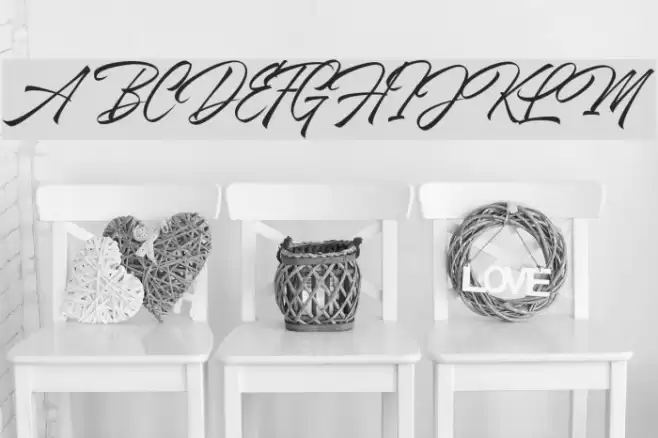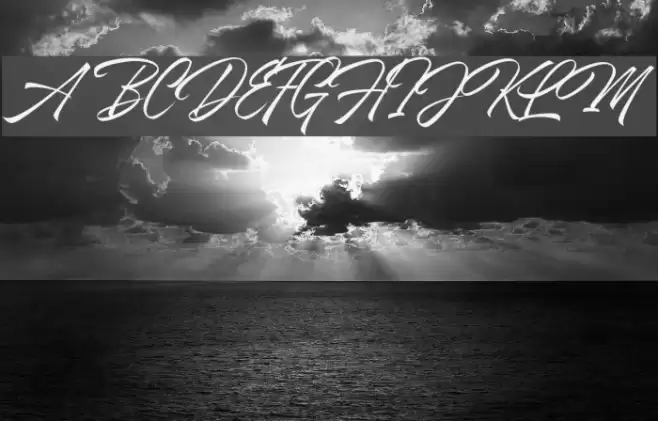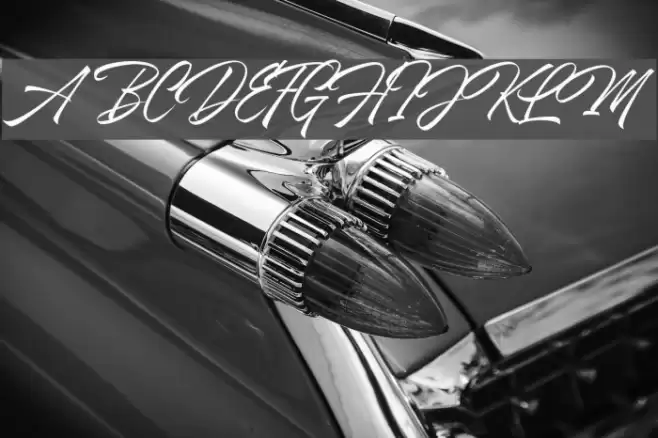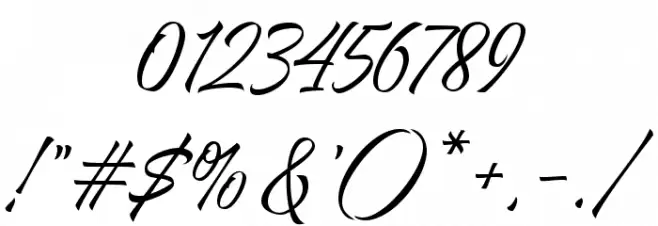
Azkia Font
Azkia Description
This font exudes a dynamic and elegant style, characterized by its flowing script and cursive design. The letters are interconnected, creating a sense of continuity and fluidity. The uppercase letters are bold and prominent, while the lowercase letters maintain a consistent flow, enhancing readability. The numerals are distinct and align well with the overall aesthetic. Special characters are crafted with the same attention to detail, ensuring they complement the alphabetic characters. This font is ideal for projects that require a touch of sophistication and flair.
A dynamic and elegant cursive script font with flowing, interconnected letters from Uncategorized fonts.
- Proposed Projects: Ideal for wedding invitations, elegant branding, personal signatures, and artistic projects.
- Overall Style: Elegant
- Use Case: Logos, Invitations, Artistic projects